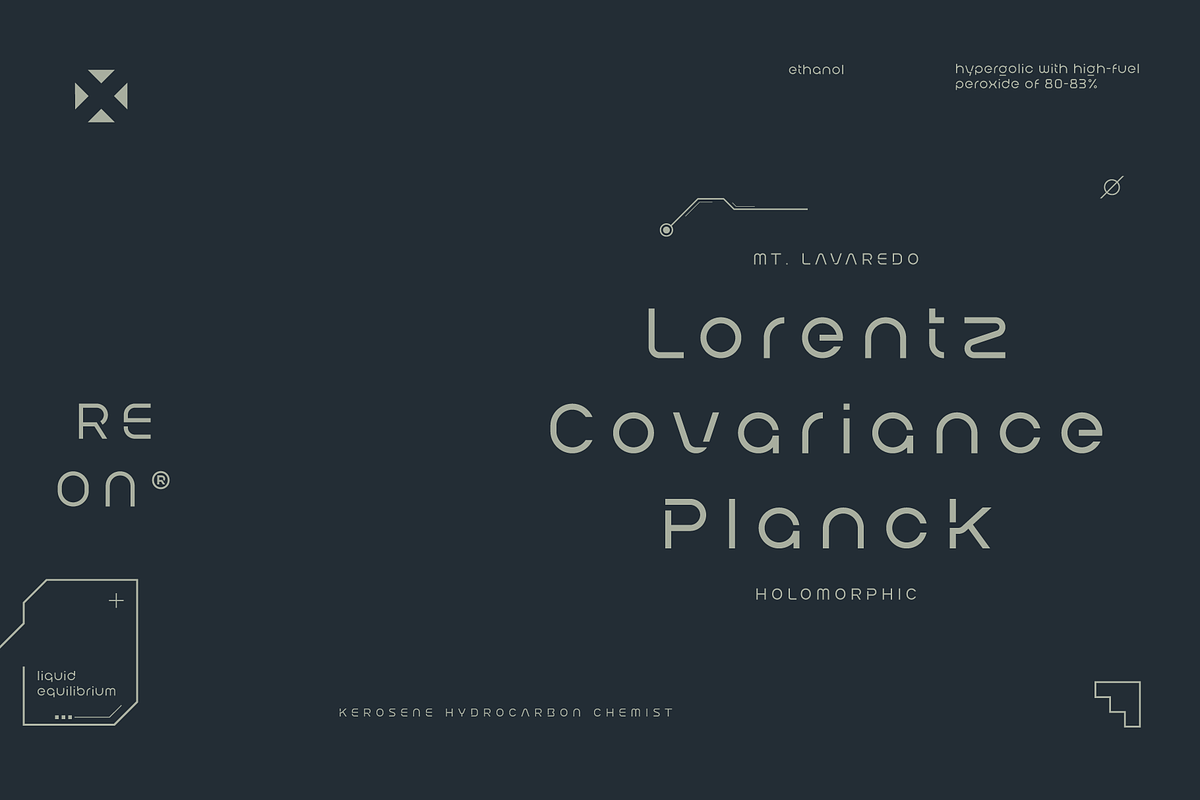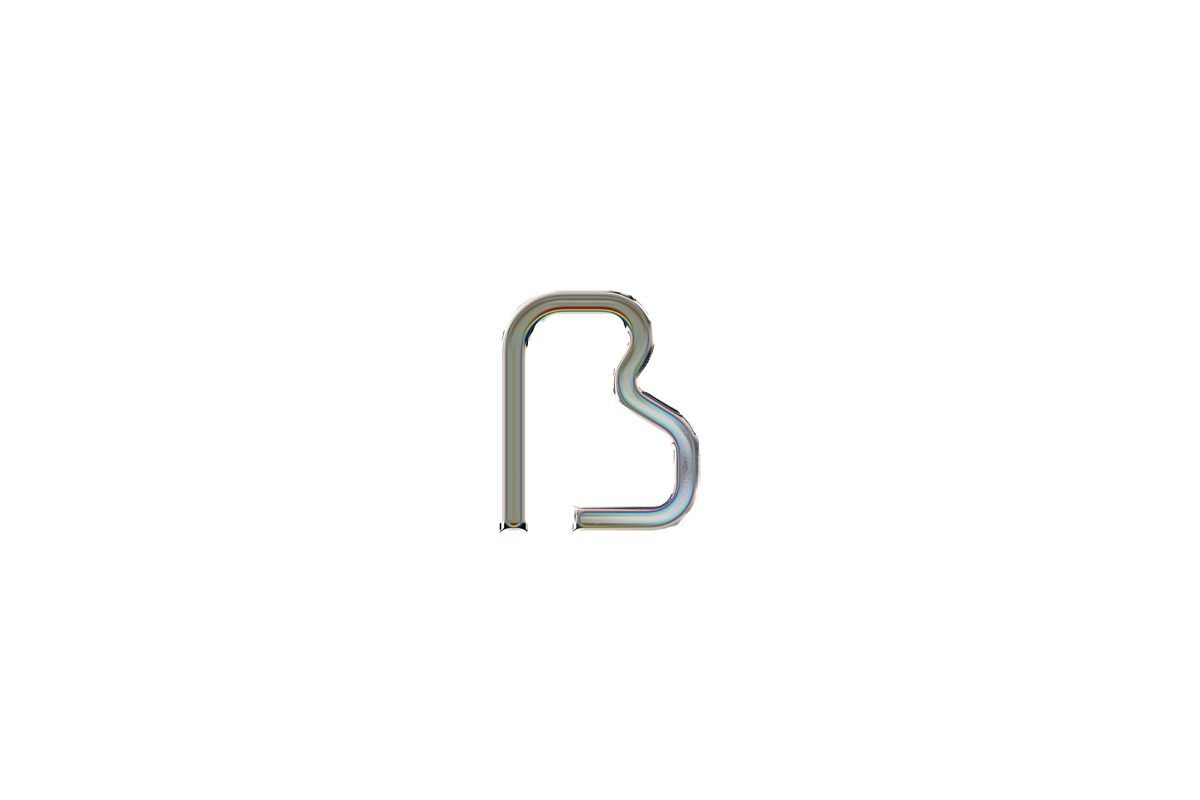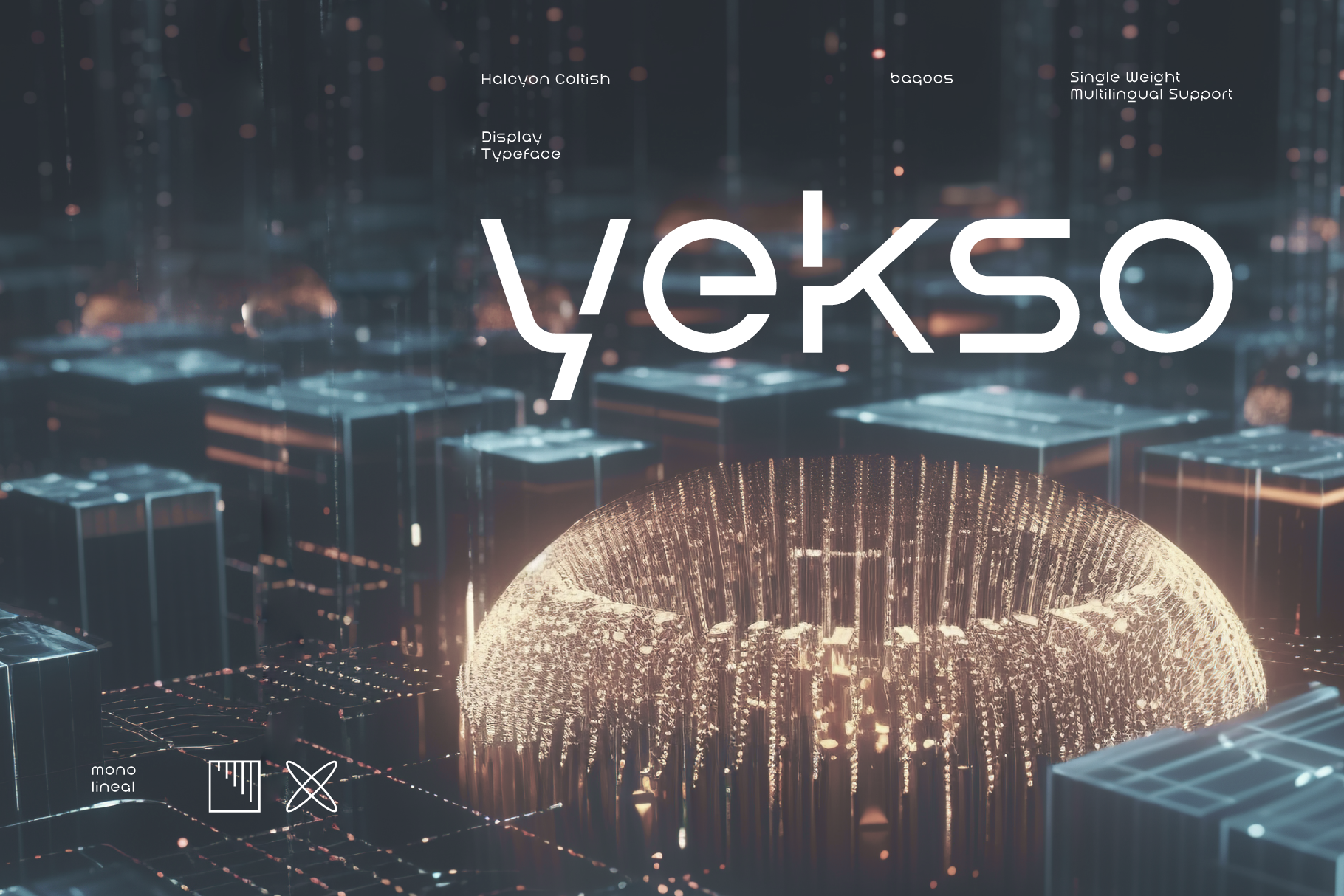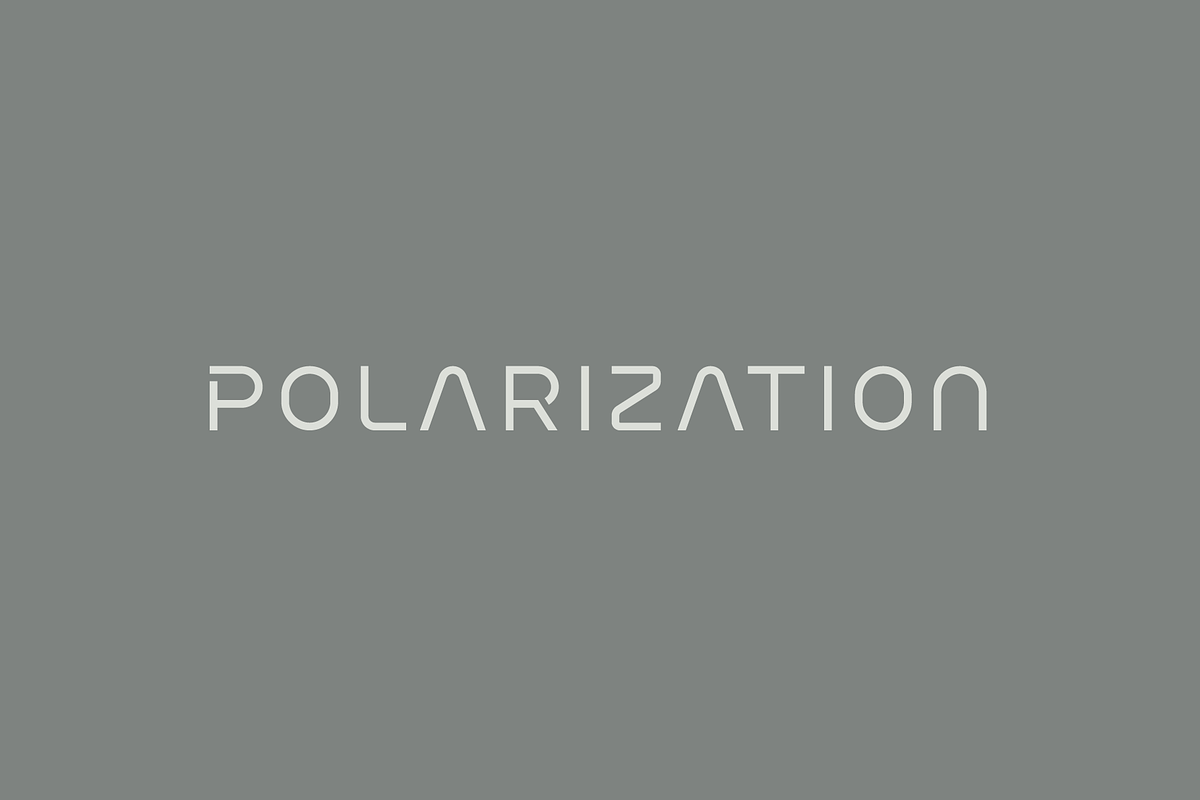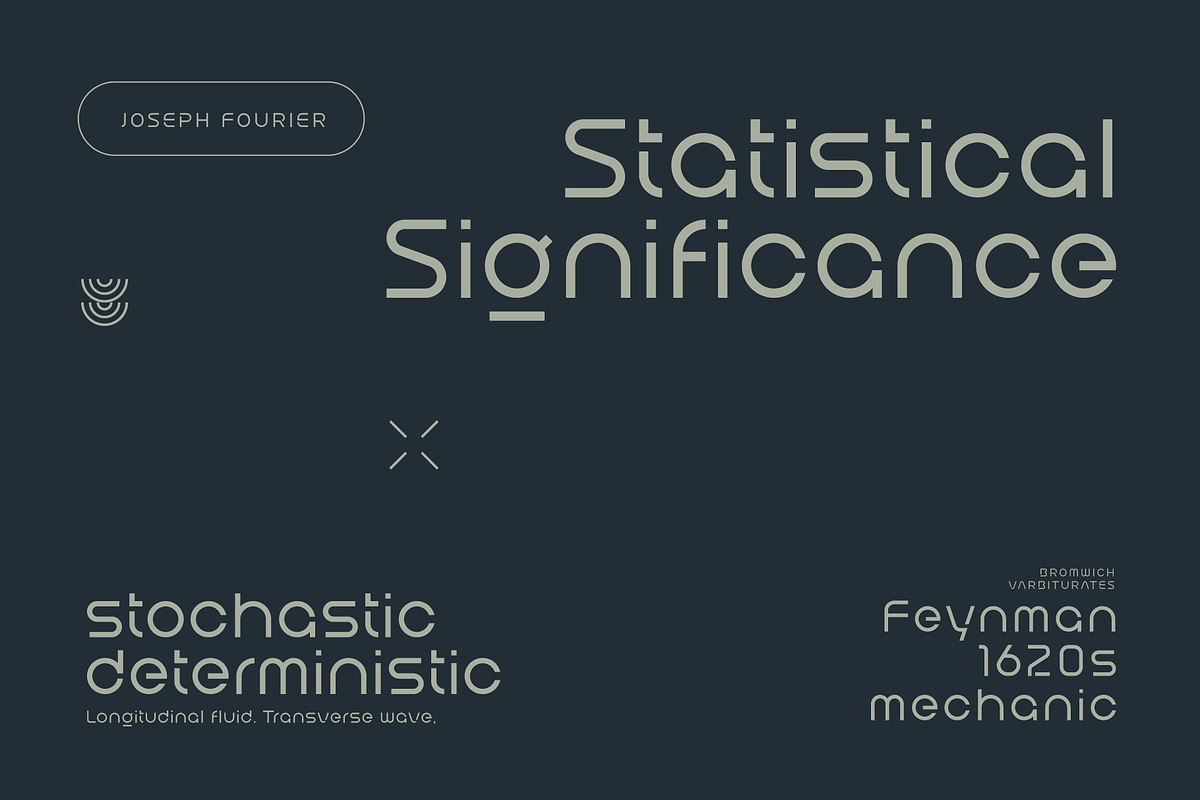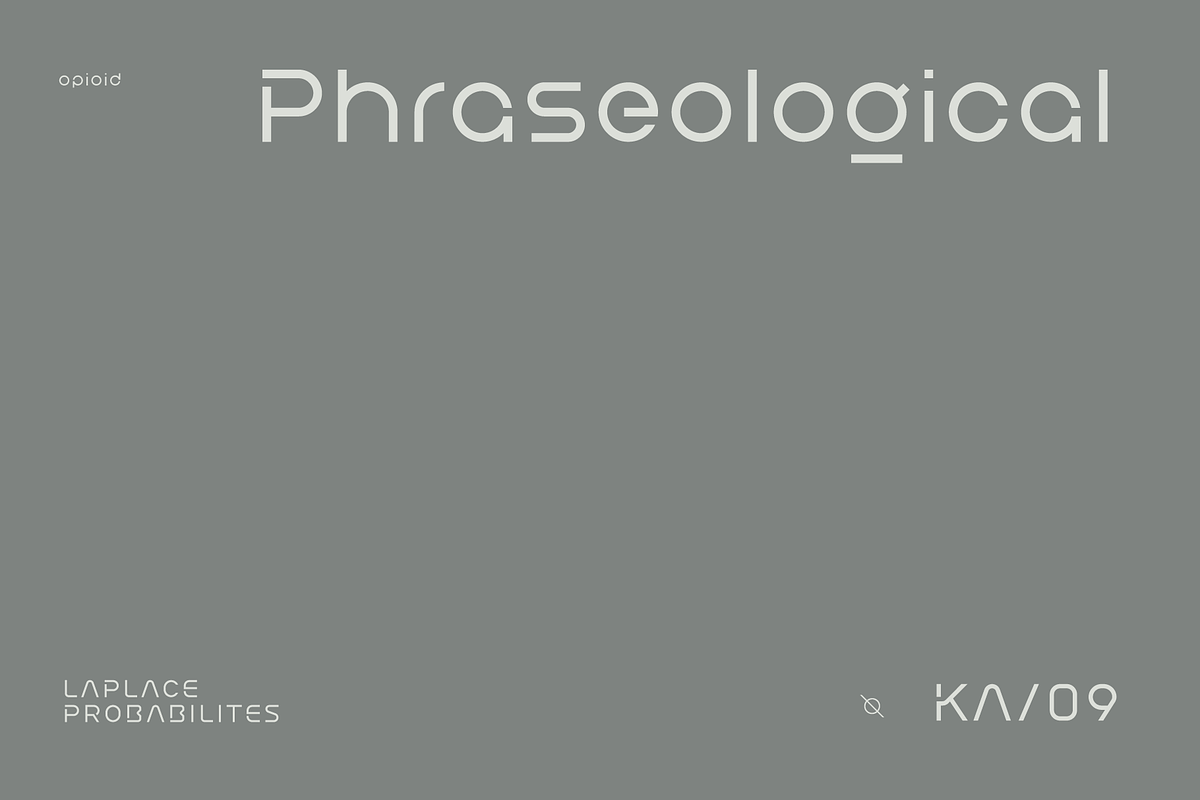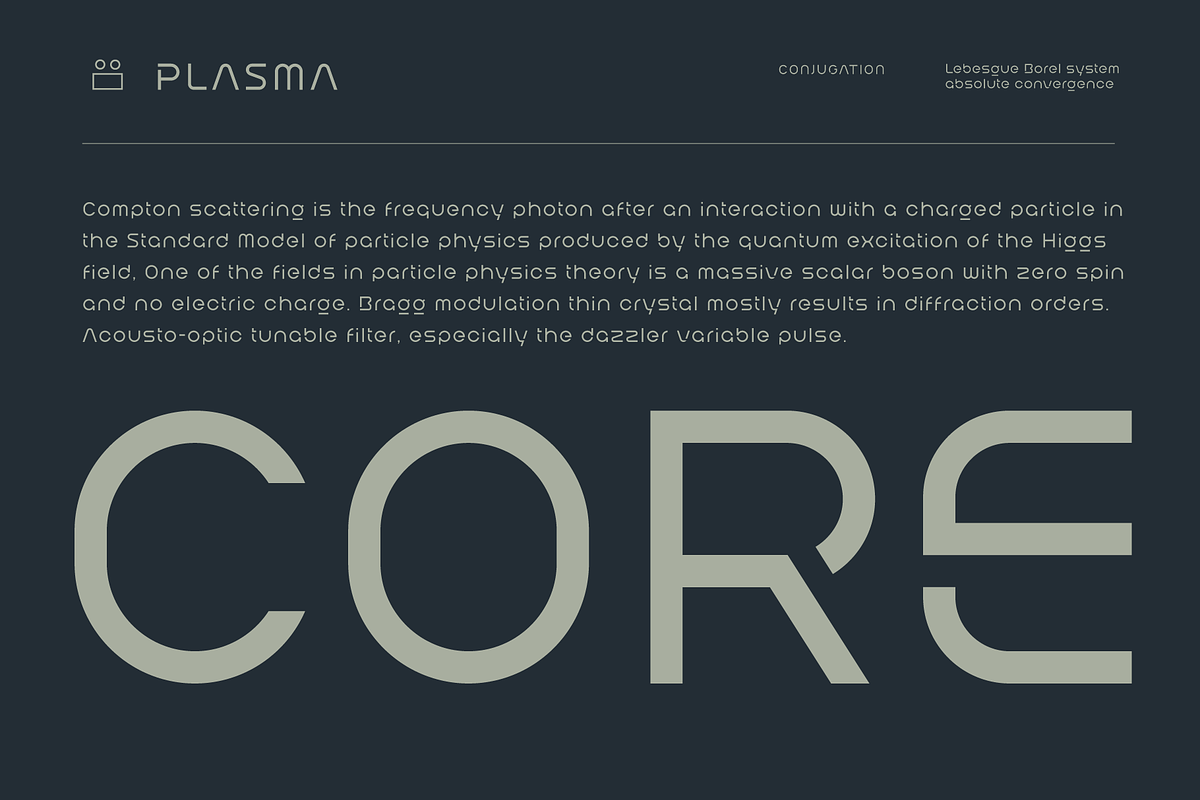
Yekso Futuristic Tech Font
Yekso is a halcyon coltish mono lineal typeface apt for headline, editorial, branding, packaging, printed materials and typographic applications. 220+ glyphs including punctuation and numerical.